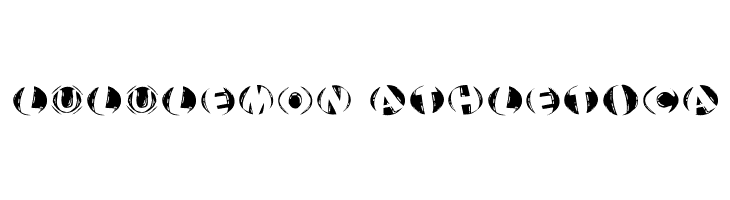
Thor Gonz Font
- Font: Thor Gonz
A bold, woodcut-style font with circular enclosures and artistic flair.
A bold, woodcut-style font with a hand-carved, textured appearance.
A bold, decorative font with a woodcut effect and circular enclosures.
A hand-drawn, woodcut-style decorative font with circular outlines.